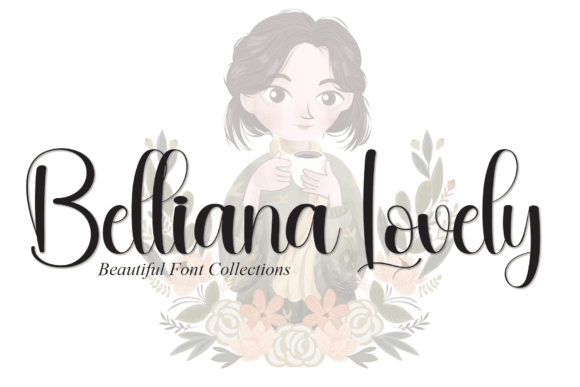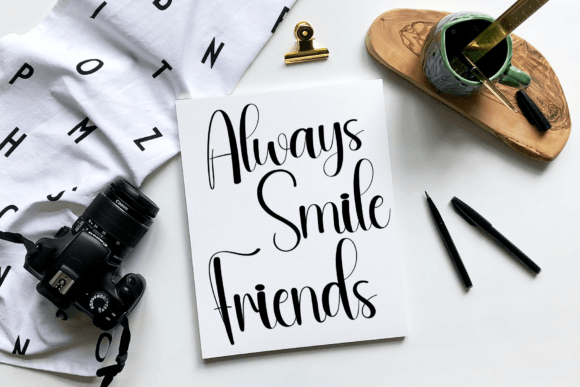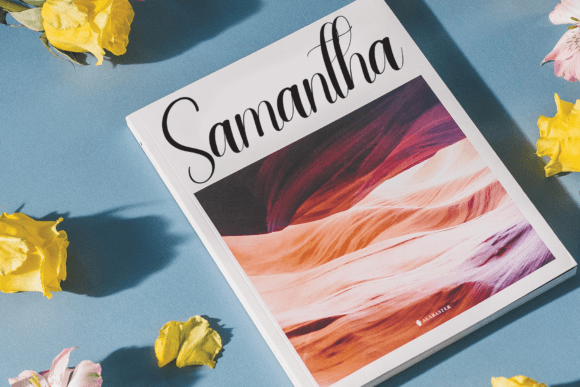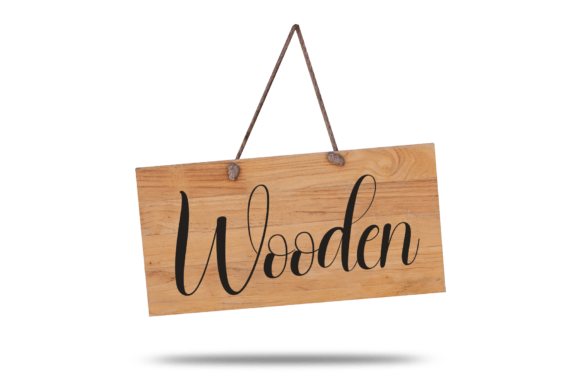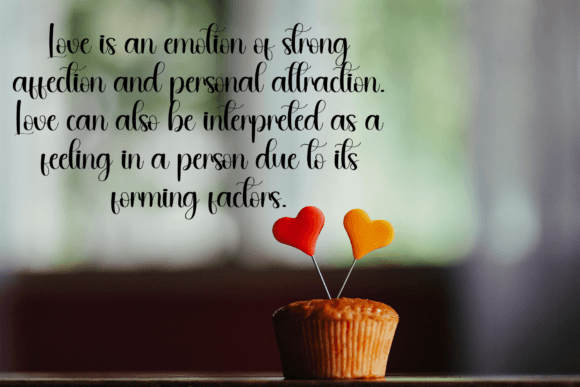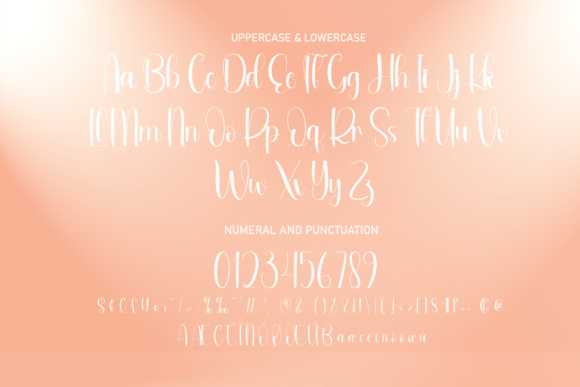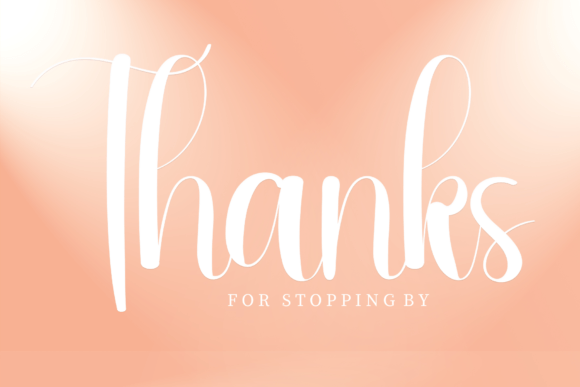
Belliana Lovely Font: Adding a Touch of Whimsy to Your Designs
Have you ever sat down with a blank sheet of paper, a pen, and a spark of creativity, only to be overwhelmed by the endless possibilities? This is a moment we’ve all been there – the moment of blank-page panic. But what if I told you that there’s a secret to breaking the silence and bringing your ideas to life? Enter the Belliana Lovely Font, a sweet and friendly handwritten font that’s perfect for adding a touch of whimsy to your designs.
This charming font is ideal for writing wedding invitations, cards, or any other design that needs a fun touch. With its fresh and neat design, the Belliana Lovely Font is a valuable addition to any designer’s toolkit. Whether you’re a seasoned pro or a budding artist, this font is sure to inspire your creativity and bring a smile to your face.
Belliana Lovely Font Key Features
- Font Family: Belliana Lovely Font, a beautiful and elegant script font.
- Unique Characteristics: Features a unique, hand-drawn design with subtle flourishes and elegant lines, giving it a touch of sophistication and whimsy.
Belliana Lovely Font Review
At first glance, Belliana Lovely Font seems like a sweet addition to any design project. The script font style ✨ adds a touch of elegance and whimsy, perfect for invitations, wedding cards, or children’s book titles. The font’s soft and flowing lines ✨ create a sense of movement, drawing the reader’s eye through the text.
However, upon closer inspection, I noticed a few limitations ⚠️. The font’s inconsistent letter spacing and varying font sizes can make it challenging to read, especially in longer blocks of text. Additionally, the font’s weight is not well-suited for headings or titles, as it can become too thin and difficult to see.
Overall, Belliana Lovely Font is a lovely addition to any design project, but it’s not a one-size-fits-all solution. It’s best suited for short, decorative text or titles that require a touch of whimsy. For longer blocks of text or headings, it’s best to use a more traditional font.
- Perfect for short, decorative text or titles
- Adds a touch of elegance and whimsy
- Soft and flowing lines create a sense of movement
- Inconsistent letter spacing
- Varying font sizes can be challenging to read
- Not well-suited for headings or titles
Getting the Most Out of Belliana Lovely Font
To get the most out of Belliana Lovely Font, use it in designs that require a elegant and feminine touch, such as:
- Wedding invitations
- Baby shower invitations
- Women’s fashion magazines
- Home decor designs
Remember to pair the font with other design elements that complement its elegant and feminine style.